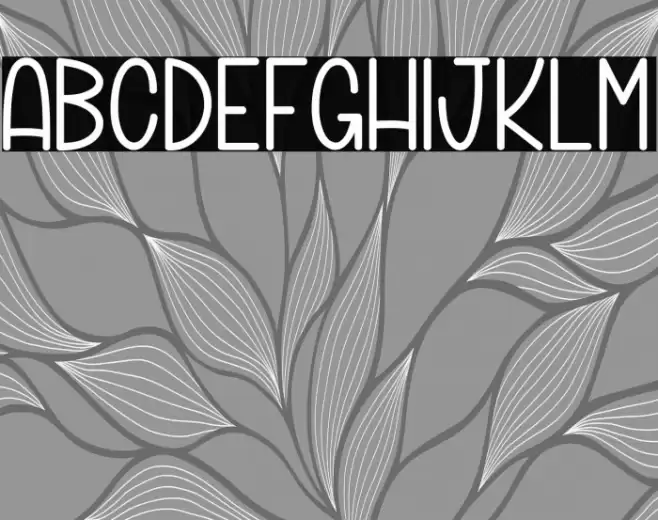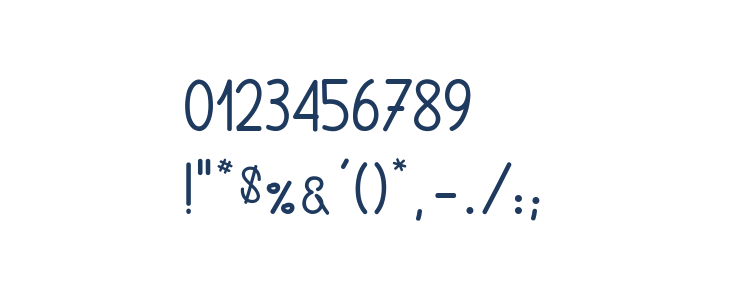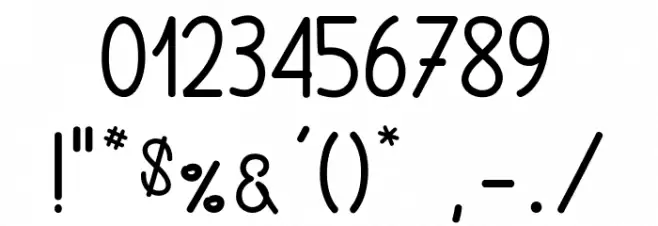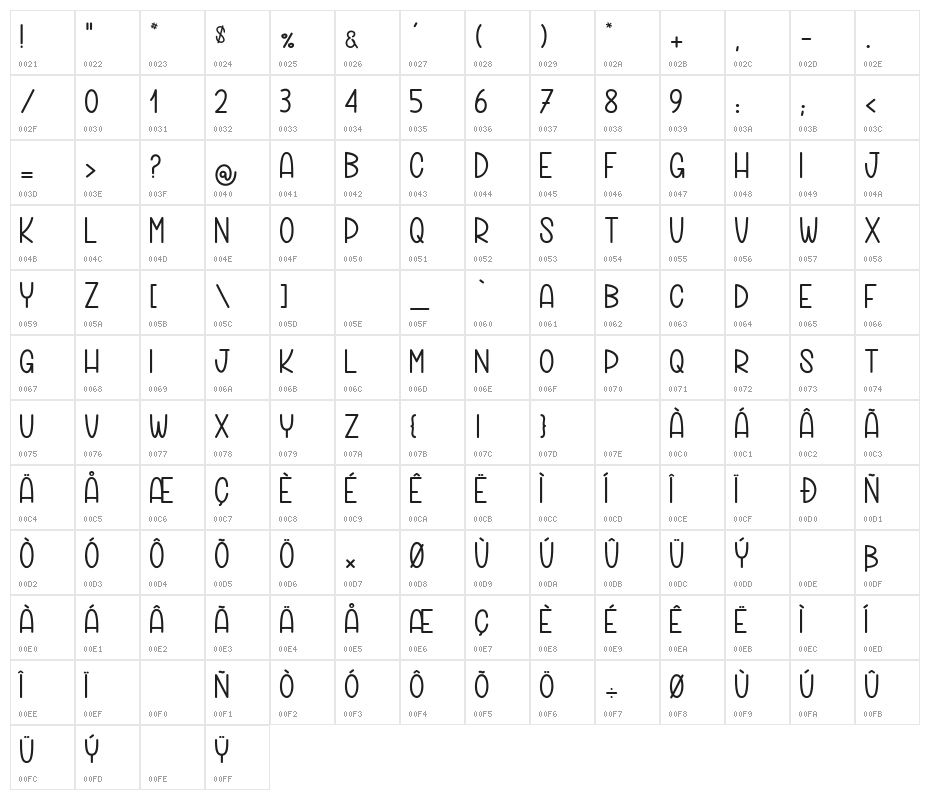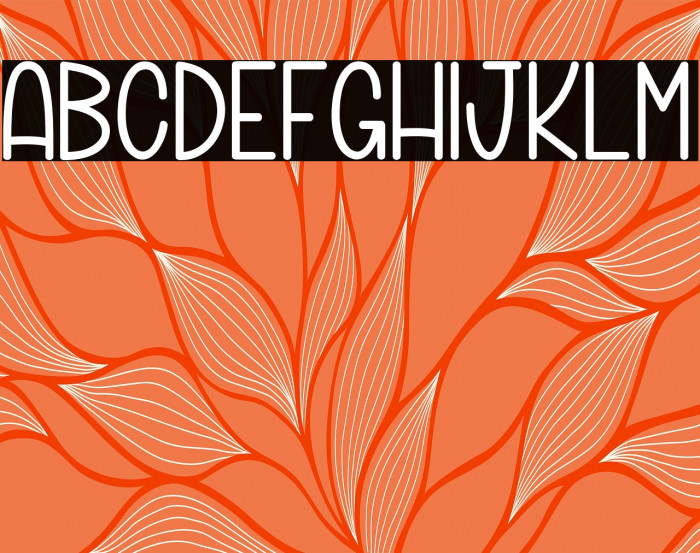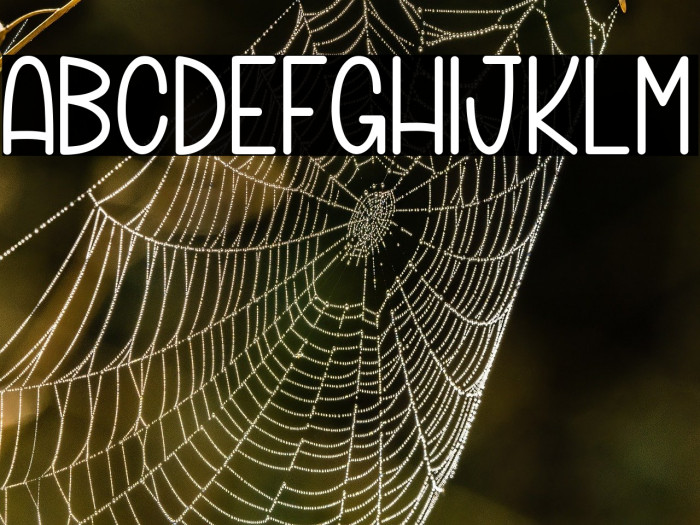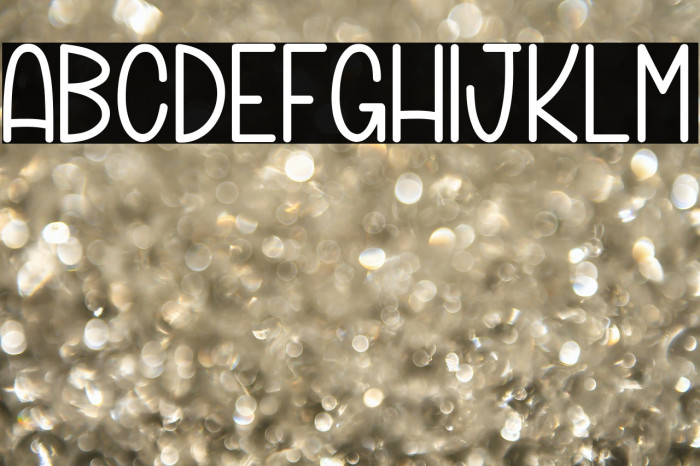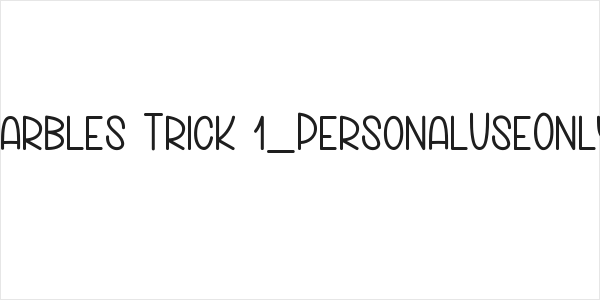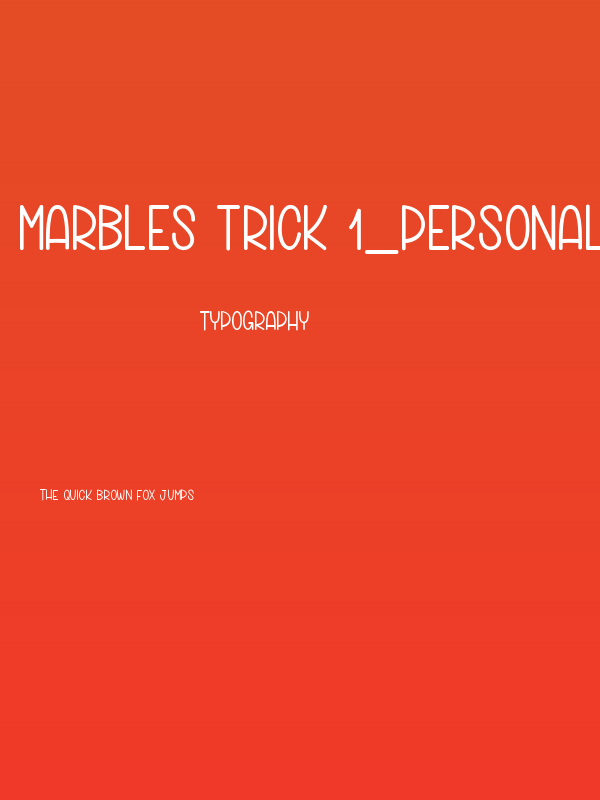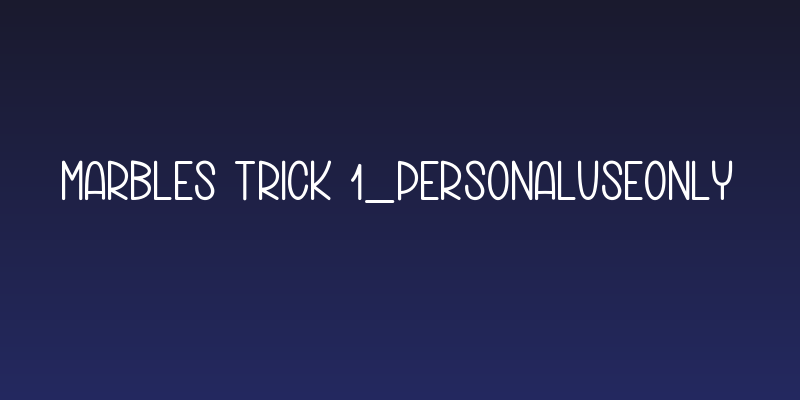
Marbles Trick 1_PersonalUseOnly Font
Marbles Trick 1_PersonalUseOnly Description
This playful and whimsical font features rounded, smooth lines that give it a friendly and approachable appearance. The characters are slightly elongated, with a consistent stroke width that maintains a clean and modern look. The uppercase and lowercase letters are well-balanced, making it easy to read while still retaining a unique personality. The numerals and special characters are designed to match the overall style, ensuring a cohesive look across all text elements. This font's simplicity and charm make it versatile for various design projects.
A playful, rounded font with smooth lines and a friendly appearance from Uncategorized fonts.
- Proposed Projects: Ideal for children's books, playful branding, greeting cards, and casual invitations.